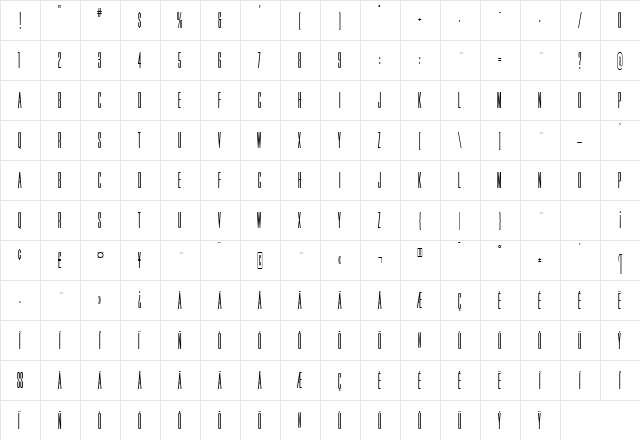
TripleCondensedGothicRR Medium Regular Font Preview
Design Context for TripleCondensedGothicRR Medium Typeface
TripleCondensedGothicRR Medium takes a clean, functional approach — its unadorned letterforms prioritise legibility and work reliably across screen and print environments. Its narrow stance lets it pack a punch even in space-constrained designs.
Font Pairing: Works well alongside a characterful serif or display font that can carry the expressive load while TripleCondensedGothicRR Medium handles the functional copy.
Pro Tip: Use TripleCondensedGothicRR Medium tightly set in headlines and banners — its condensed proportions make it ideal for maximum impact in minimum horizontal space.